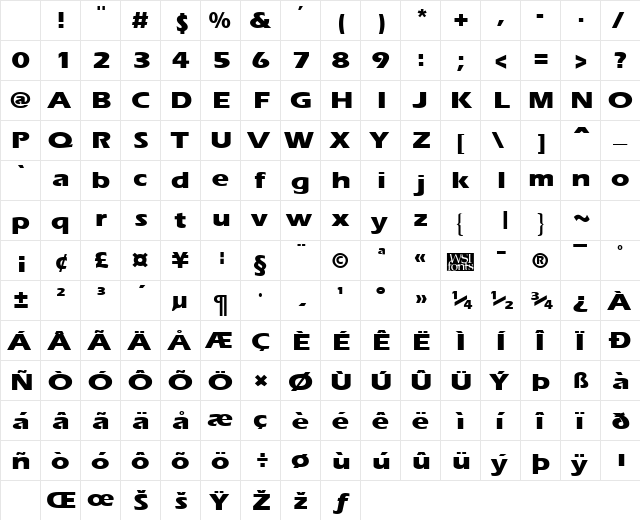
ErgoeExtraboldExpanded Regular
ErgoeExtraboldExpanded Family
ErgoeExtraboldExpanded Regular
ErgoeExtraboldExpanded Regular Font Preview
ErgoeExtraboldExpanded Regular Uppercase Preview
ErgoeExtraboldExpanded Regular Lowercase Preview
ErgoeExtraboldExpanded Regular Numeric Preview
ErgoeExtraboldExpanded Regular Character Map
Complete ErgoeExtraboldExpanded Regular glyph index. Displaying only characters natively supported by ErgoeExtraboldExpanded Regular font.
Design Context for ErgoeExtraboldExpanded
ErgoeExtraboldExpanded is a composed and adaptable typeface that performs quietly and consistently across a wide range of design contexts. Its bold stroke weight gives it real presence on the page.